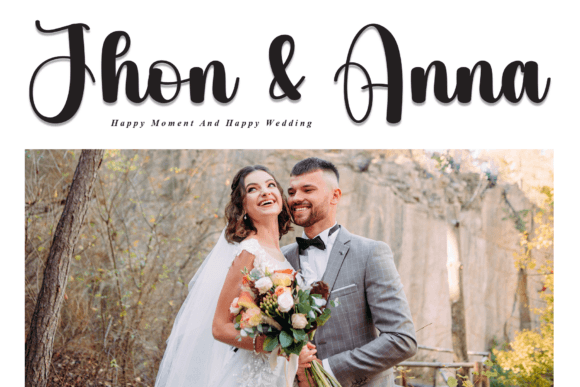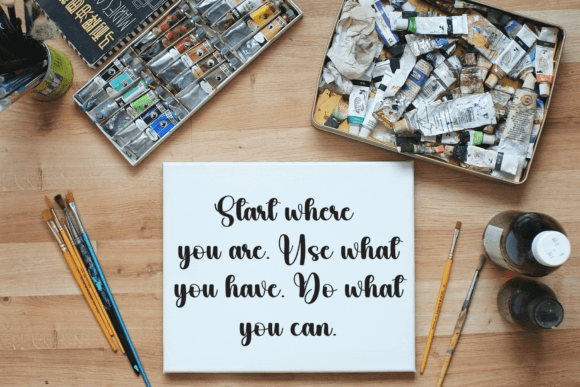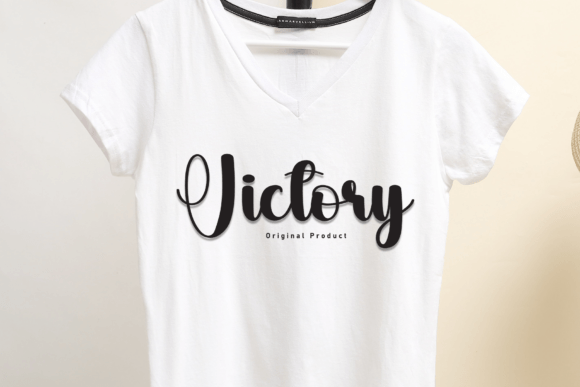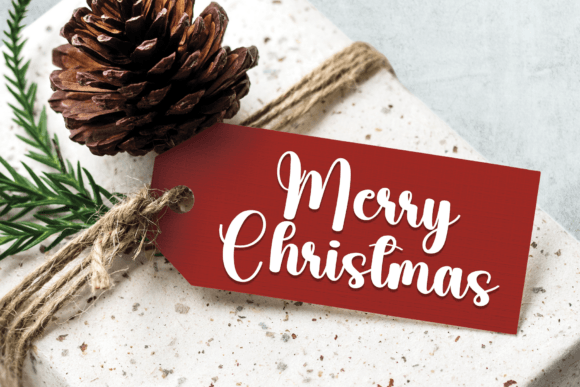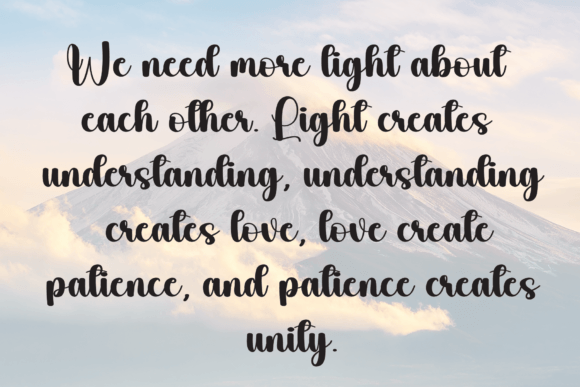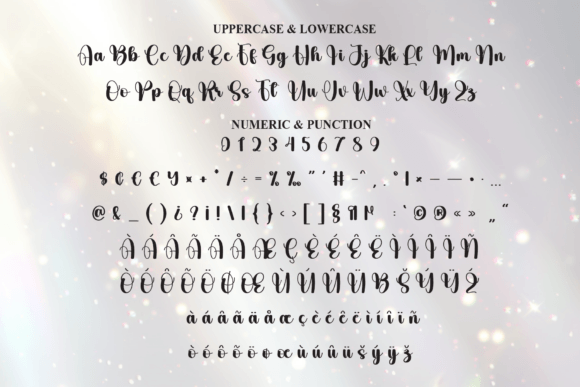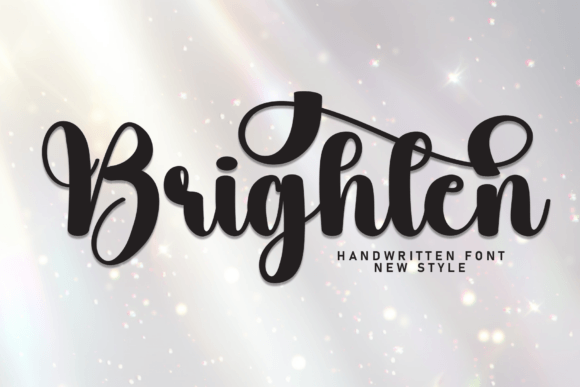
Introducing Brighten Font: Elevate Your Designs with Elegance and Charm
In the world of typography, few fonts manage to capture the essence of elegance and charm as effectively as Brighten Font. This stylish handwritten script font is designed to bring a touch of sophistication and warmth to any design project. With its flowing, graceful curves, Brighten Font is perfect for a variety of applications, from invitations and logos to branding and more.
The Characteristics of Brighten Font
Brighten Font is distinguished by its delicate strokes and fluid connections, which give it a unique and personal feel. The font’s design is characterized by:
- Elegant Curves: Brighten Font features smooth, flowing curves that add a touch of sophistication to any text.
- Handwritten Style: The font’s handwritten style gives it a personal and approachable feel, making it perfect for designs that require a touch of warmth and personality.
- Delicate Strokes: The font’s delicate strokes bring a sense of lightness and airiness to the text, making it easy to read and visually appealing.
Uses of Brighten Font
Brighten Font’s versatility makes it suitable for a wide range of design applications. Some of the most popular uses of this font include:
- Invitations: Brighten Font is perfect for creating beautiful and elegant invitations for weddings, parties, and other special occasions.
- Logos and Branding: The font’s unique style makes it an excellent choice for logos and branding, helping businesses to establish a strong and recognizable identity.
- Stationery and Packaging: Brighten Font can add a touch of elegance and sophistication to stationery, packaging, and other printed materials.
Benefits of Using Brighten Font
Brighten Font offers several benefits to designers and crafters, including:
- Unique Style: The font’s distinctive style sets it apart from more traditional fonts, allowing designers to create unique and eye-catching designs.
- Ease of Use: Brighten Font is easy to read and works well in a variety of sizes, making it suitable for a range of design applications.
- Customization: The font’s delicate strokes and flowing curves make it easy to customize and pair with other fonts.
Tips for Using Brighten Font Effectively
To get the most out of Brighten Font, consider the following tips:
- Use it Sparingly: Brighten Font’s elegance and charm can be overwhelming if used excessively. Use it sparingly to create a sense of balance and harmony in your design.
- Pair it with Other Fonts: Experiment with pairing Brighten Font with other fonts to create a unique and visually appealing design.
- Adjust the Size and Color: Adjust the size and color of Brighten Font to create a sense of hierarchy and emphasis in your design.
Brighten Font is a stylish and elegant handwritten script font that can add a touch of sophistication and charm to any design project. With its flowing curves, delicate strokes, and unique style, it’s perfect for a variety of applications, from invitations and logos to branding and more. By understanding the characteristics, uses, and benefits of Brighten Font, designers and crafters can unlock its full potential and create beautiful, eye-catching designs that stand out from the crowd.